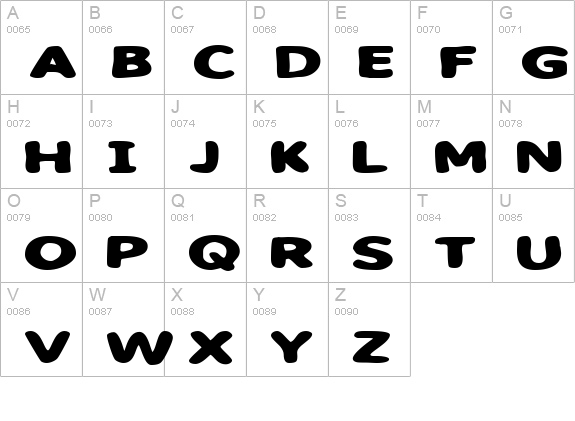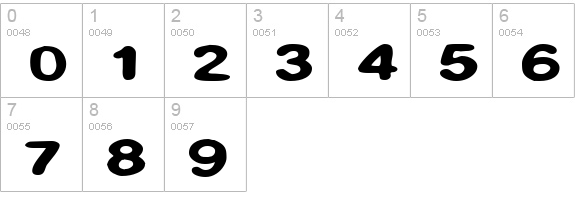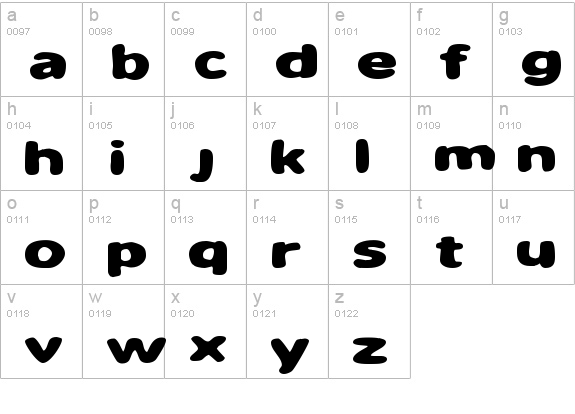
Sweet as candy Font Details
The Sweet as Candy font is a delightful and charming typeface that exudes a playful and sweet vibe. With its whimsical curves and cheerful appearance, this font is perfect for adding a touch of fun and creativity to your designs. Whether you're working on a project for a children's book, a party invitation, or a candy shop logo, the Sweet as Candy font is sure to bring a smile to anyone's face. Best of all, this fantastic font is available for free download at FontsMarket.com, making it easily accessible for all designers and creatives looking to add a sugary-sweet touch to their projects. Don't miss out on the opportunity to add this delightful font to your collection and bring a burst of sweetness to your designs today!